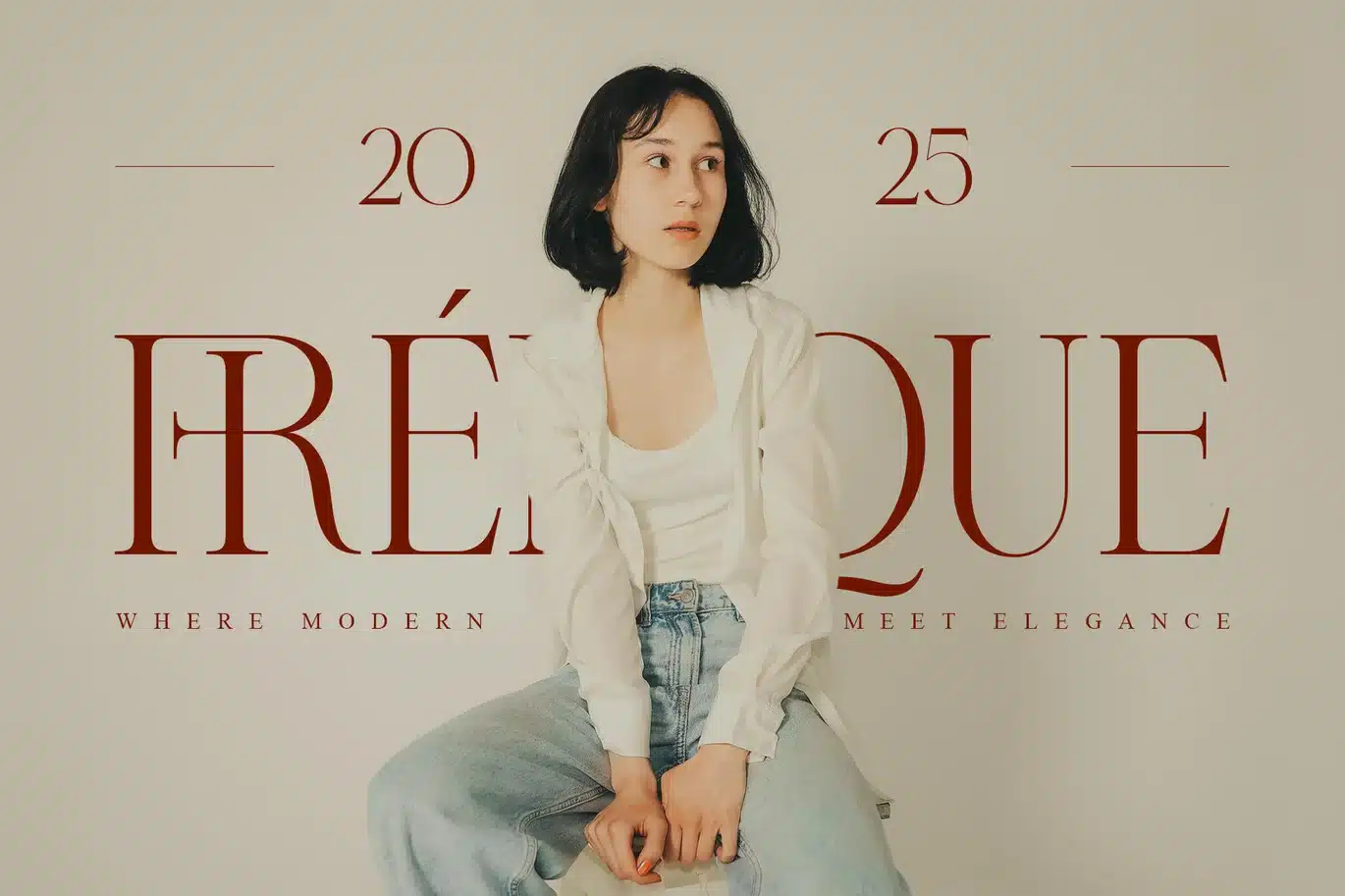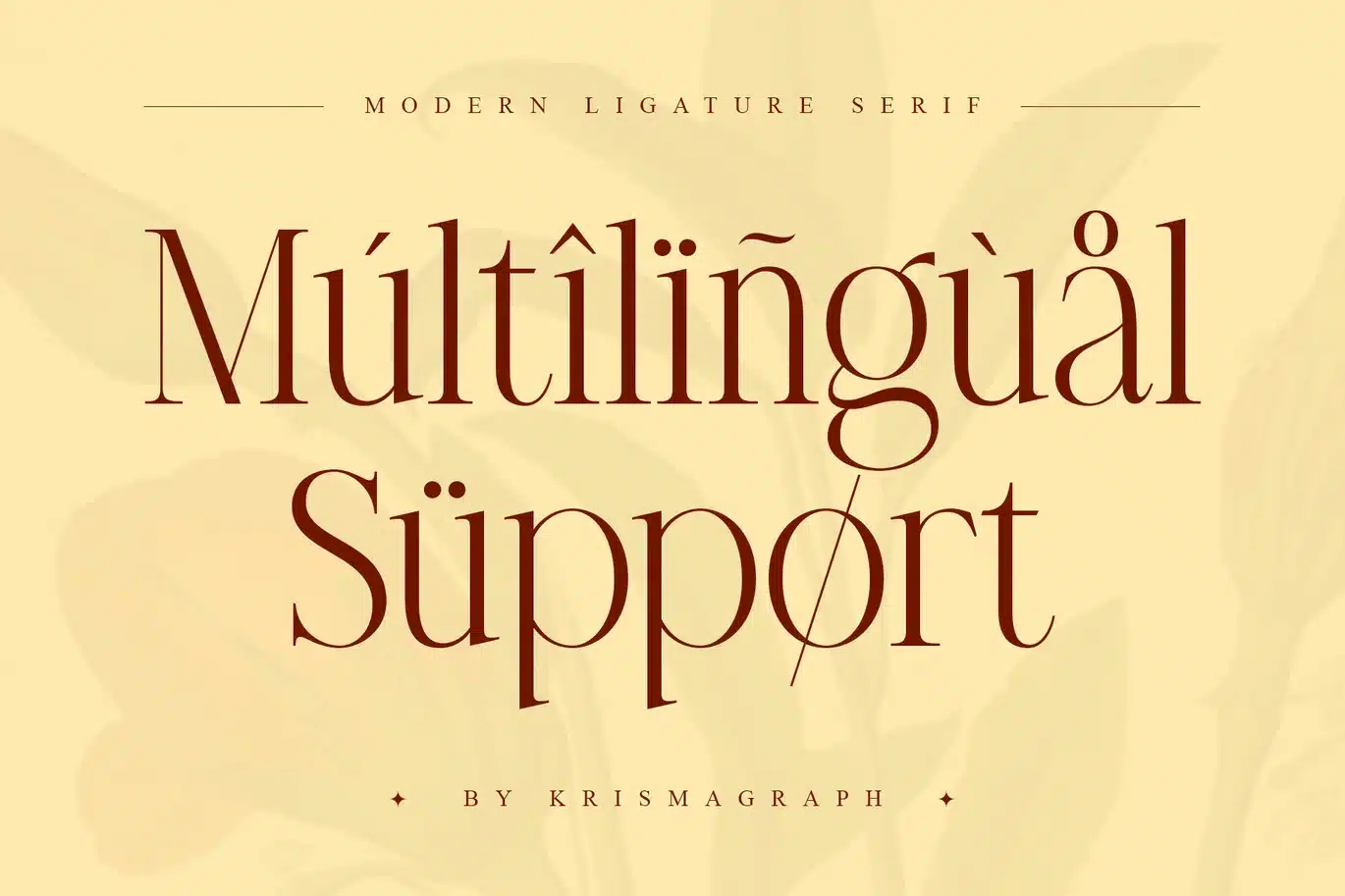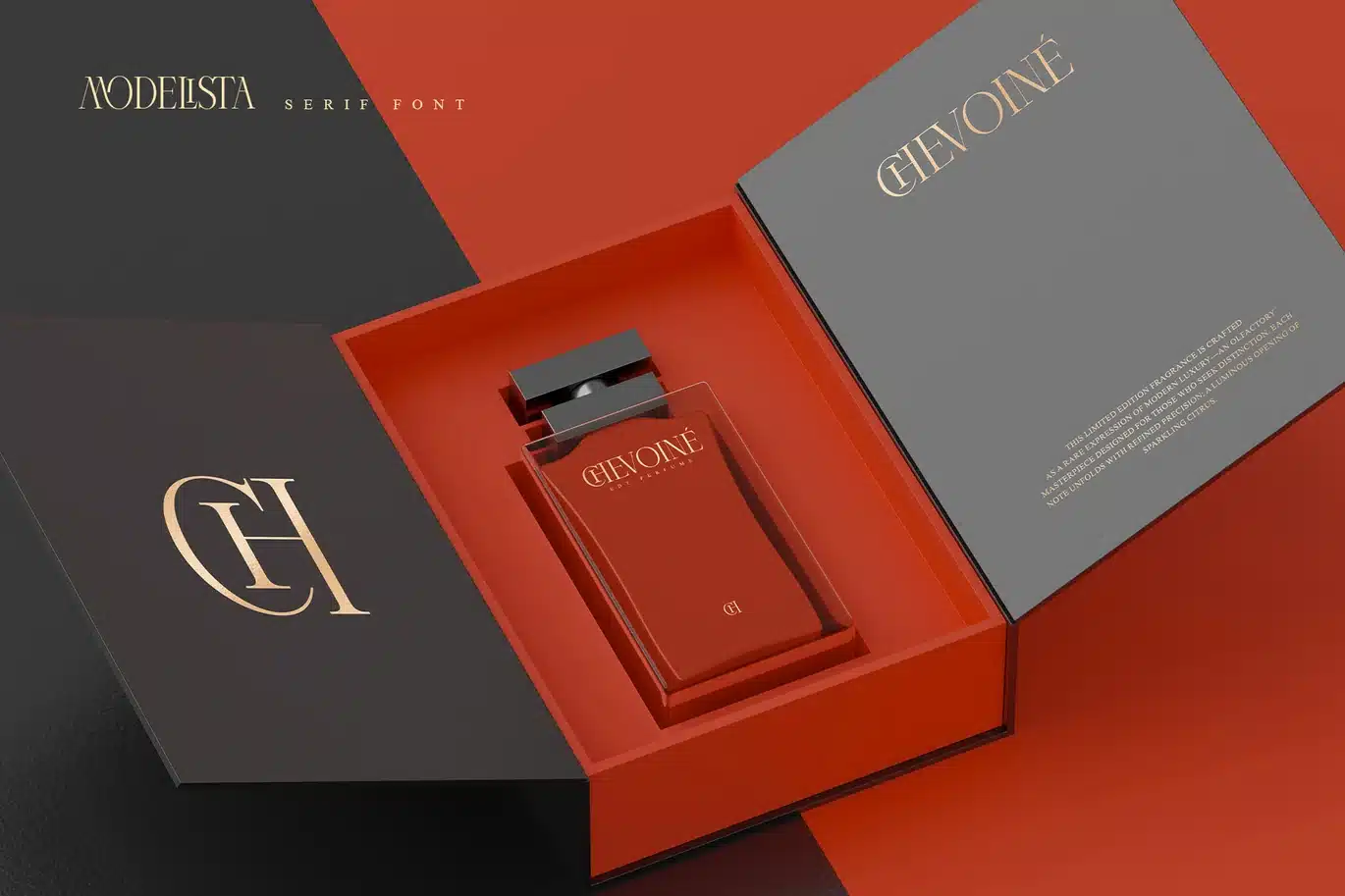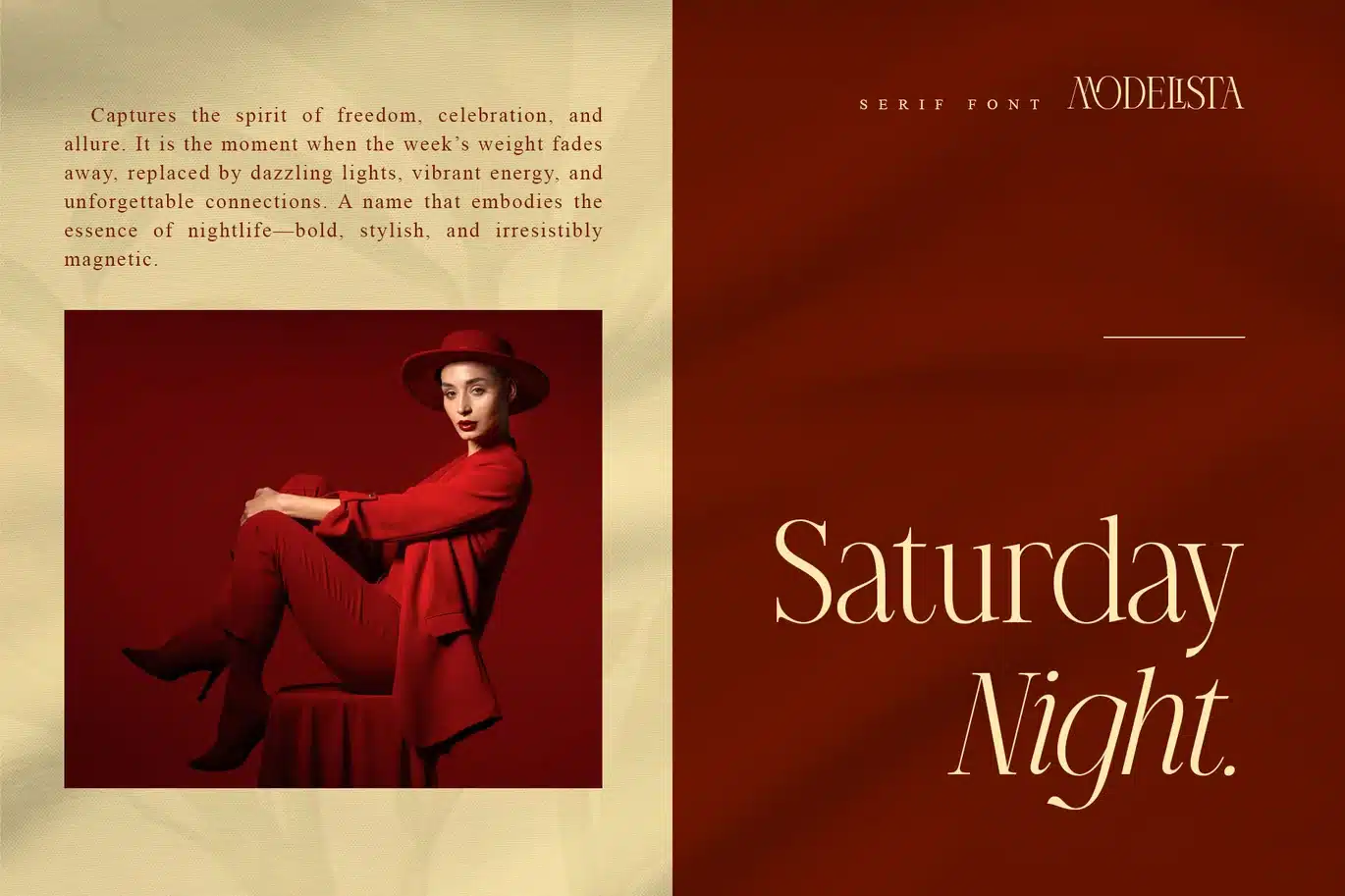
Modelista Light | Ligature Serif Font
Introducing The New Modelista Light a modern ligature serif font that includes 2 fonts, regular and italic.
Modelista is a multipurpose font that is perfect for any project, with high-contrast glyphs, giving it an elegant, feminine and masculine, modern, and easy-to-read quality. It is equipped with a unique ligature to give your designs a new color. Great in layout design for quotes or body copy, best used as a display for headings, editorial, logos, branding, magazines, product packaging, invitations, quotes, blogs, and more. This font is easy to use and has OpenType features.
- Complete the Alphabet with Uppercase and Lowercase Letters
- Numbers, fractions
- Punctuation and symbols